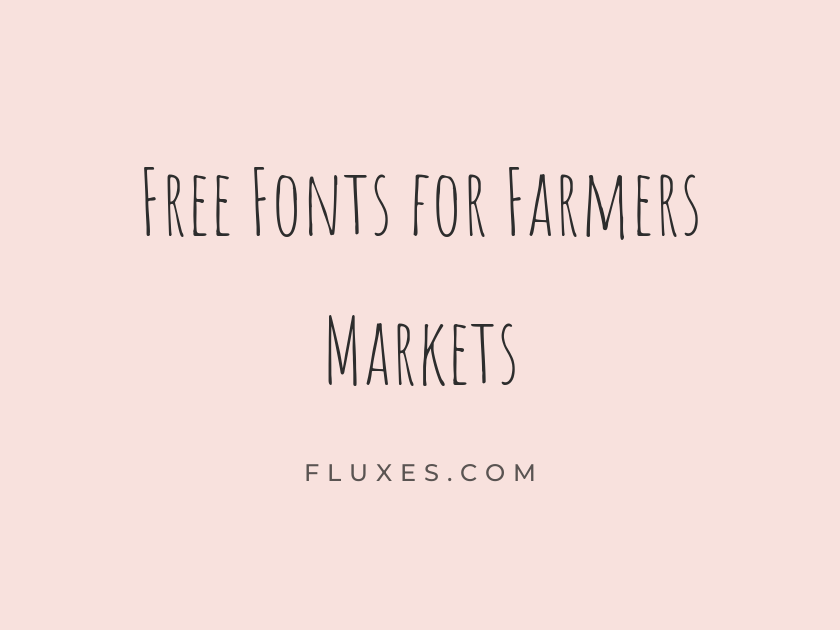
65 Best Free Fonts for Farmers Markets
A trip to the farmers market is tactile: crates of tomatoes, chalk-scrawled prices, hand-stamped paper bags, string-tied bundles of herbs. The right typography can carry that same warmth onto a logo, a market map, a produce sign, or a recipe card, which is why so many small farms, co-ops, and market organizers turn to free fonts on Google Fonts rather than paying for a full type license. This roundup gathers rustic, hand-lettered, and vintage-inspired options alongside sturdy sans serifs and readable serifs, so you can build a full farm-to-table identity, from banner headline to price tag to newsletter body copy, without spending a cent.
1. Amatic SC
Skinny, hand-drawn, and instantly recognizable, Amatic SC has become something of a shorthand for craft-market branding. It works best big, on chalkboard-style signs and banner headers, and starts to feel thin and fragile at small sizes, so save it for display type rather than fine print.
2. Caveat
Caveat reads like a note scrawled on a paper bag by the farmer themselves, casual and quick without tipping into messy. It pairs nicely with a plain sans for body copy, playing the role of a handwritten accent among cleaner supporting text.
3. Kalam
This Devanagari-friendly script has a rounded, slightly childlike warmth that suits community garden flyers and kids’ activity signs at family-oriented markets.
4. Patrick Hand
Even and legible at small sizes, Patrick Hand mimics tidy schoolroom handwriting rather than loose calligraphy, which makes it a dependable choice for ingredient lists, stall labels, and market maps where clarity matters more than flourish.
5. Permanent Marker
Bold and blunt, this font looks exactly like it sounds, a felt-tip marker dragged across cardboard. Use it sparingly for urgent, temporary signage like sold-out notices or weekly specials.
6. Gochi Hand
A lighter, more delicate hand-lettered face than most on this list, Gochi Hand suits a gentler, boutique farm stand rather than a big rustic barn aesthetic.
7. Homemade Apple
Thick, looping, and genuinely handwritten in feel, Homemade Apple leans into a cozy bakery-stall mood. It gets muddy at small sizes, so reserve it for short headlines and signage rather than paragraphs.
8. Shadows Into Light
This is an easygoing, everyday script, the kind of handwriting you would find on a thank-you card tucked into a produce box. It is friendly rather than fancy, and reads comfortably even in modest sizes.
9. Reenie Beanie
Loose and slanted, Reenie Beanie has an unpolished immediacy that works well for scrawled price cards and hand-lettered directional signs pointing toward the honey stand or the parking lot.
10. Just Another Hand
Condensed and a little rough around the edges, this face fits neatly onto narrow chalkboard signs and paper tags where space is tight.
11. Architects Daughter
Structured and upright compared to looser scripts, Architects Daughter reads more like careful lettering than cursive handwriting, which makes it useful for informational panels and “meet the farmer” storytelling signage.
12. Indie Flower
Bubbly and rounded, this one brings a cheerful, almost doodled quality that suits kids’ market events, seasonal festivals, and playful social posts more than formal branding.
13. Covered By Your Grace
A softer, more delicate handwritten alternative to the bolder marker-style scripts here, fitting for gentle seasonal messaging like cider stands or pumpkin patches.
14. Schoolbell
Chunky and legible, Schoolbell has a nostalgic, chalkboard-classroom feel that suits welcome signs and community bulletin boards.
15. Delius
Rounded, low-key, and unfussy, Delius avoids the exaggerated wobble of many handwriting fonts, making it one of the more restrained hand-lettered choices on this list for longer signage text.
16. Sacramento
Delicate and fine-lined, Sacramento brings an elegant, boutique feel more suited to a specialty jam label or a farm-to-table wedding caterer than a rough-hewn produce crate.
17. Satisfy
Casual but tidy, Satisfy sits comfortably between a handwritten script and a formal calligraphic one, useful when you want warmth without looking scribbled.
Whether the goal is a rustic hand-lettered logo, a set of chalkboard price signs, or a clean website for browsing this week’s vendors, there is a genuinely free option here to fit the mood of almost any farmers market.